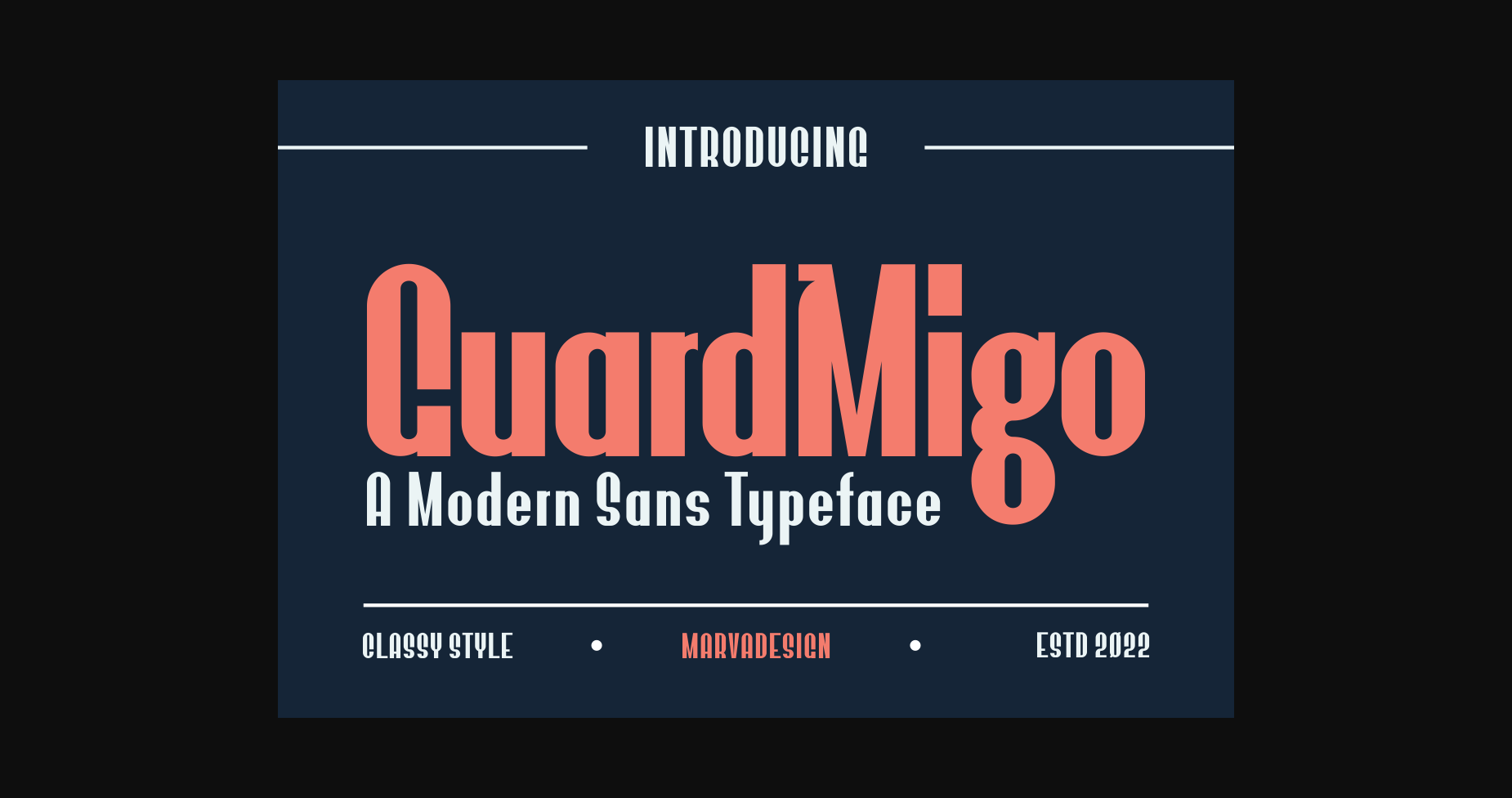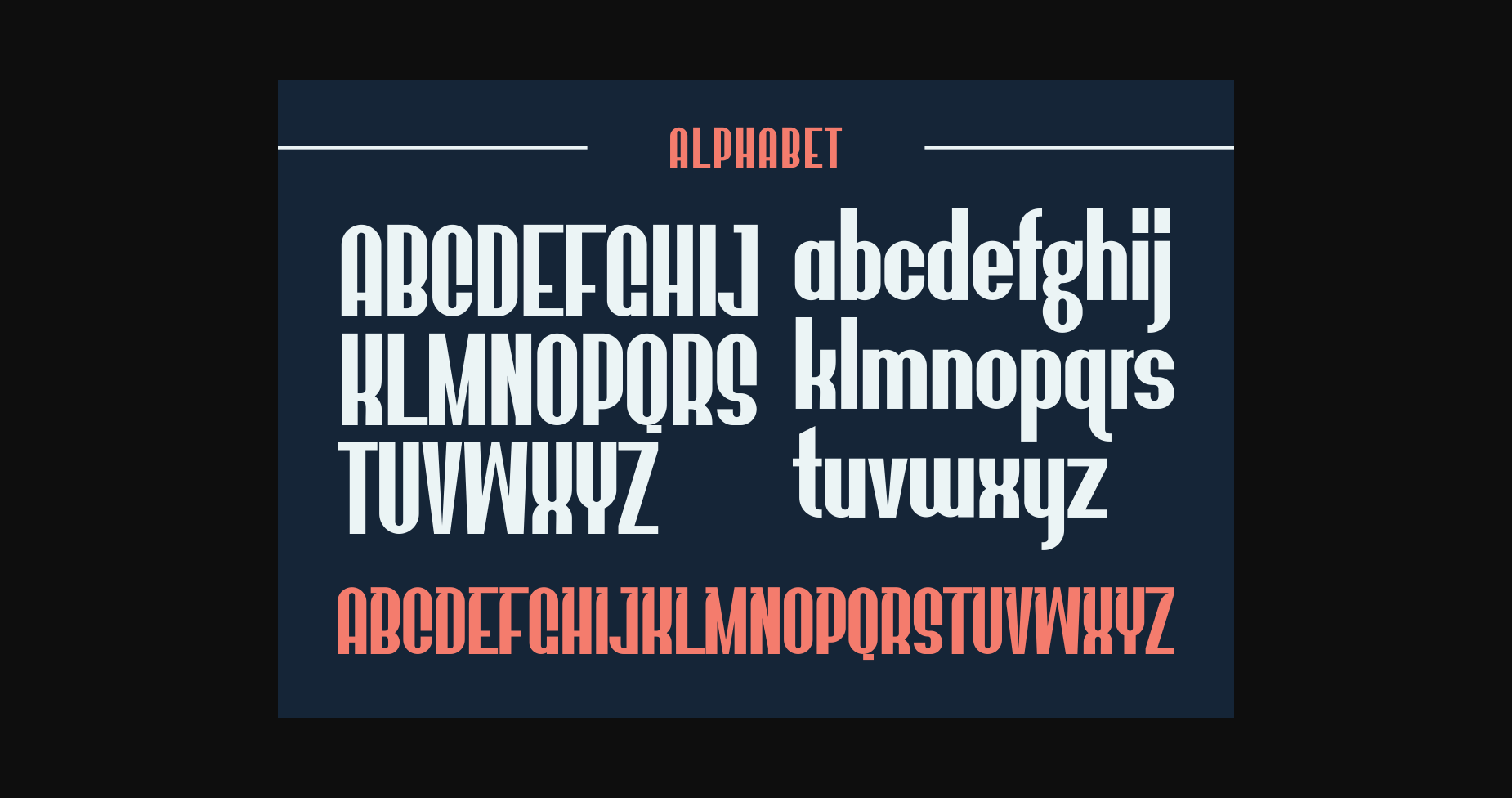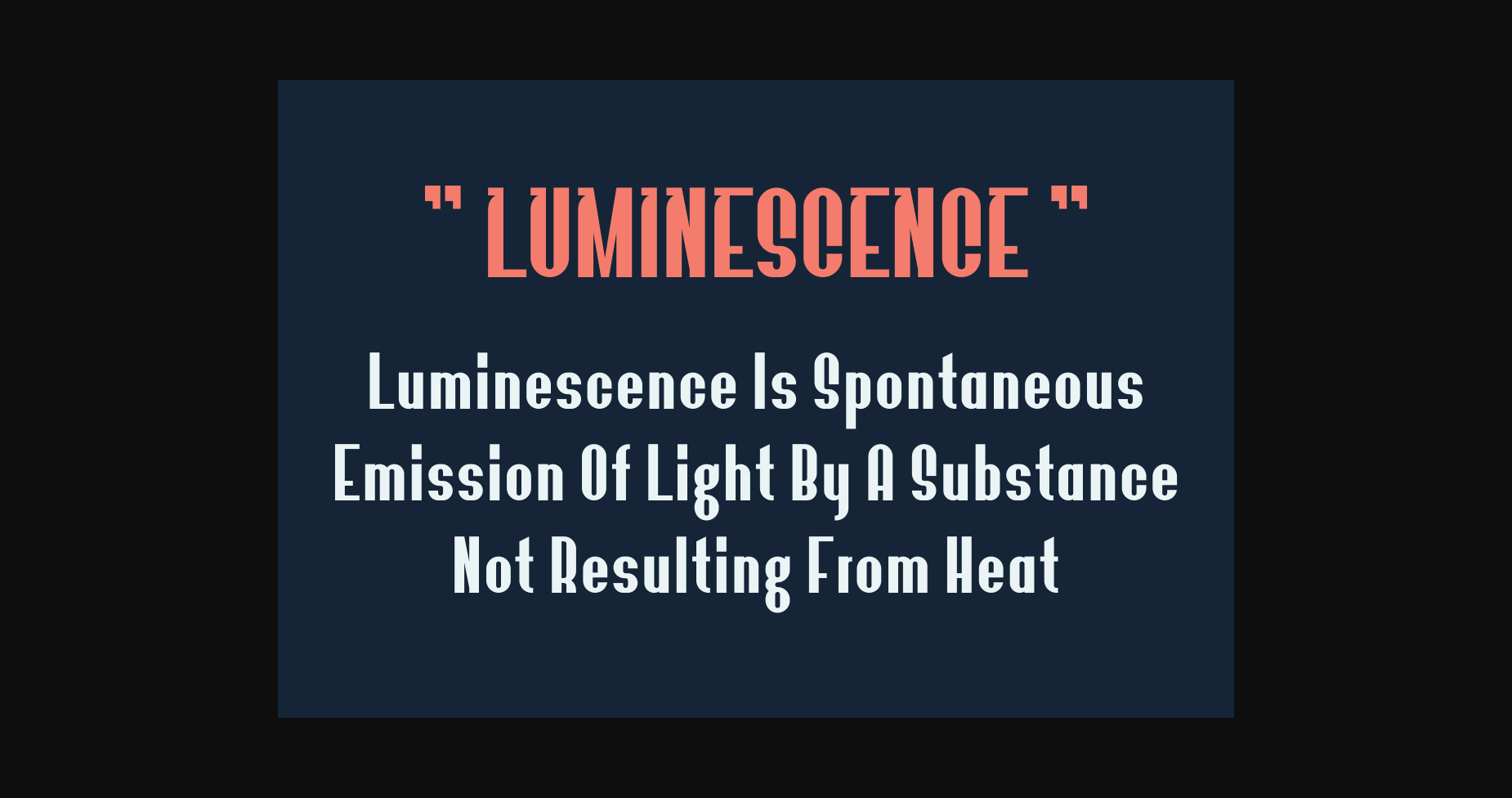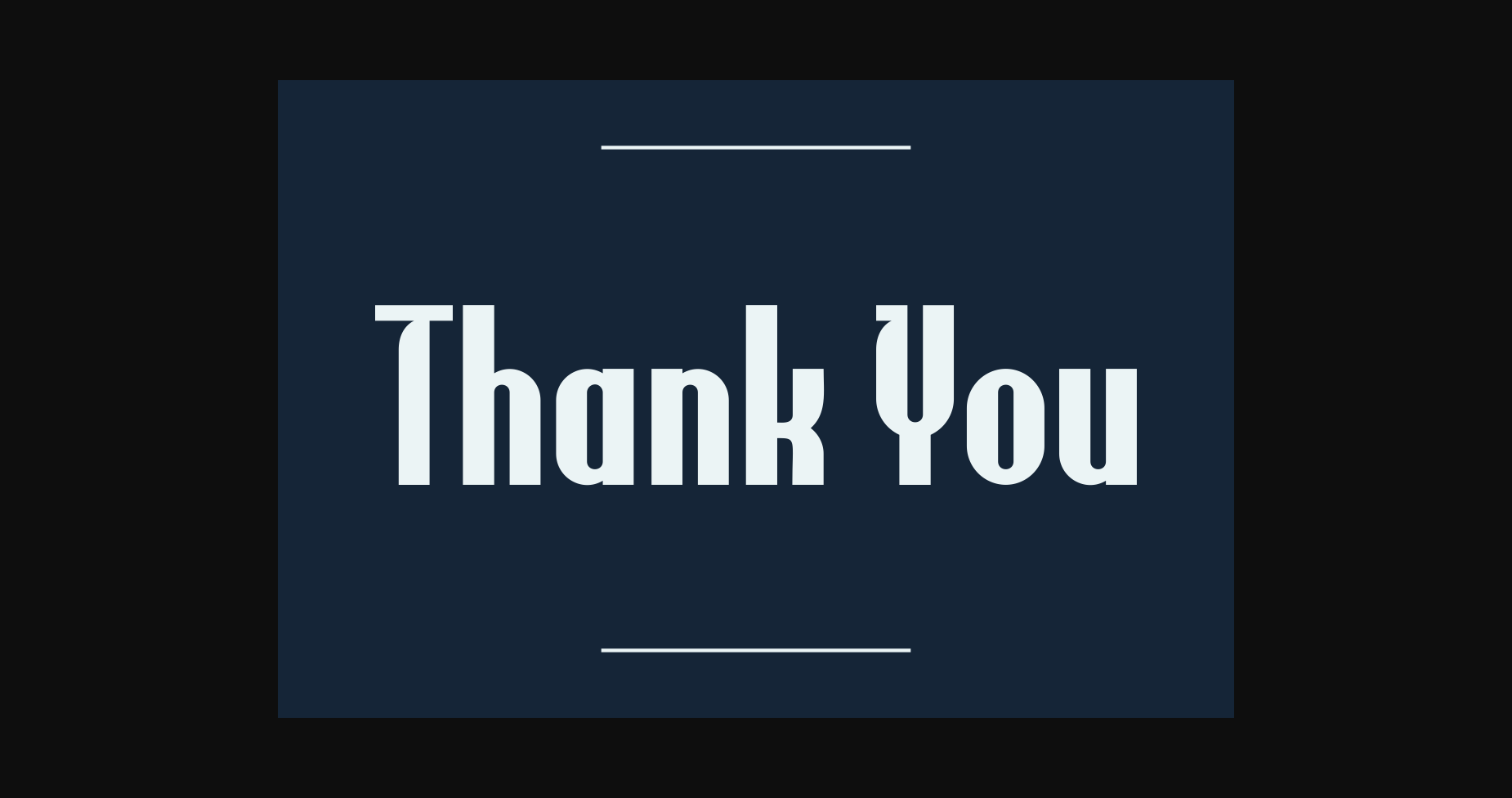
About Guardmigo Font
GuardMigo is one modern Sans Serif font with a bold and authentic style. The lovely font is suitable for any branding project like logo, t-shirt printing, product, and many more.